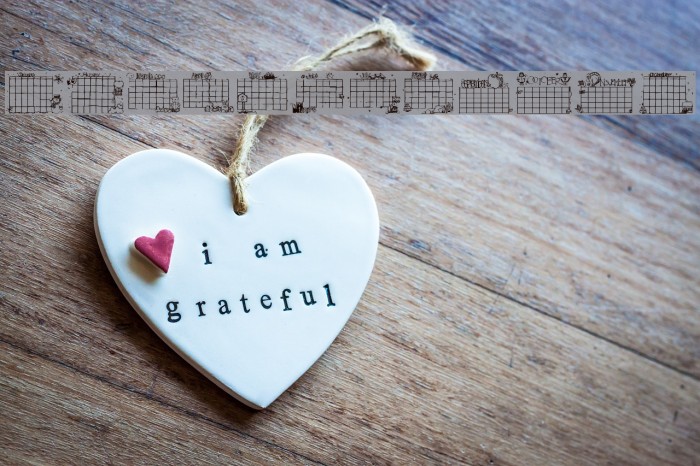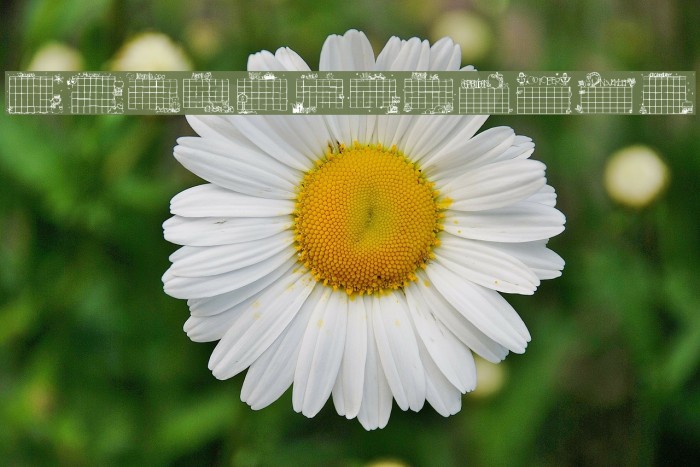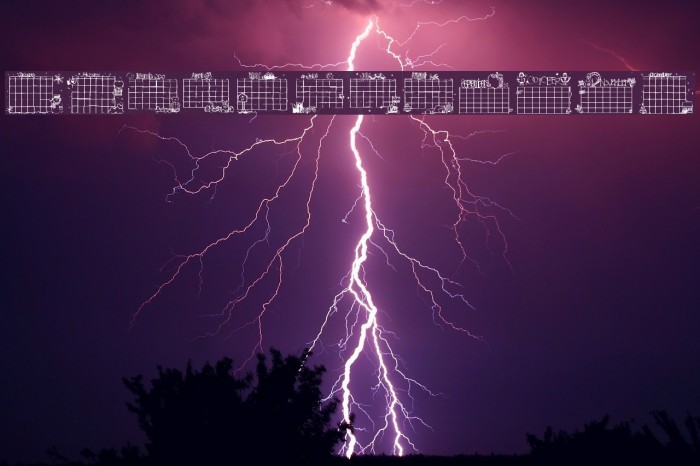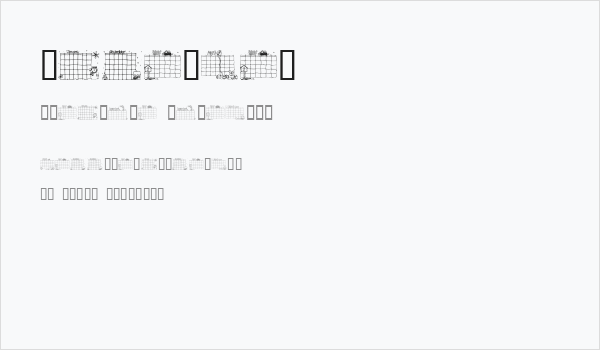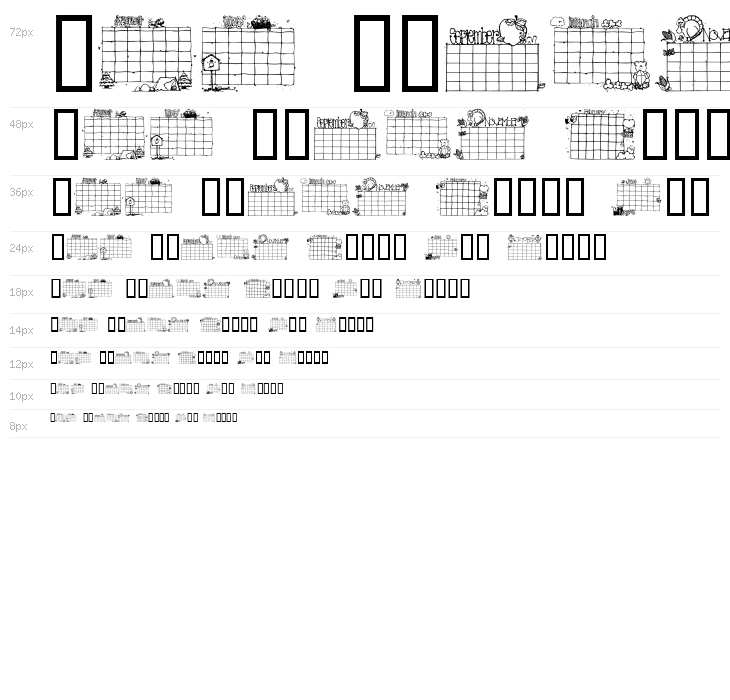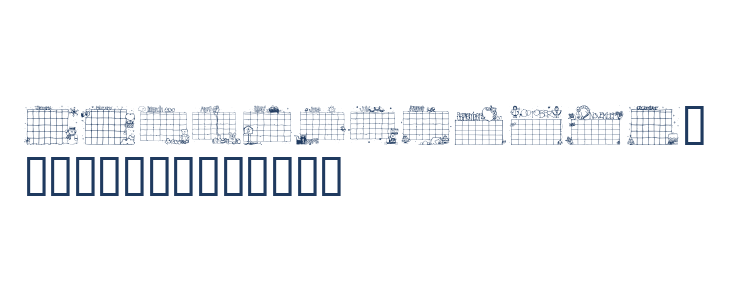
Calender Font
Calender Description
This font features a playful and whimsical design, incorporating elements of a calendar grid into each character. The letters are constructed with a grid pattern, giving them a unique and decorative appearance. The style is reminiscent of hand-drawn illustrations, with each character having a distinct and artistic flair. The font is highly decorative, making it suitable for creative projects where a touch of fun and uniqueness is desired. The characters are evenly spaced, and the overall design is consistent, maintaining the grid theme throughout the alphabet.
| Use Case | Logos, Headlines, Posters |
| Proposed Projects | Ideal for creative projects such as children's books, playful invitations, or themed event posters. |